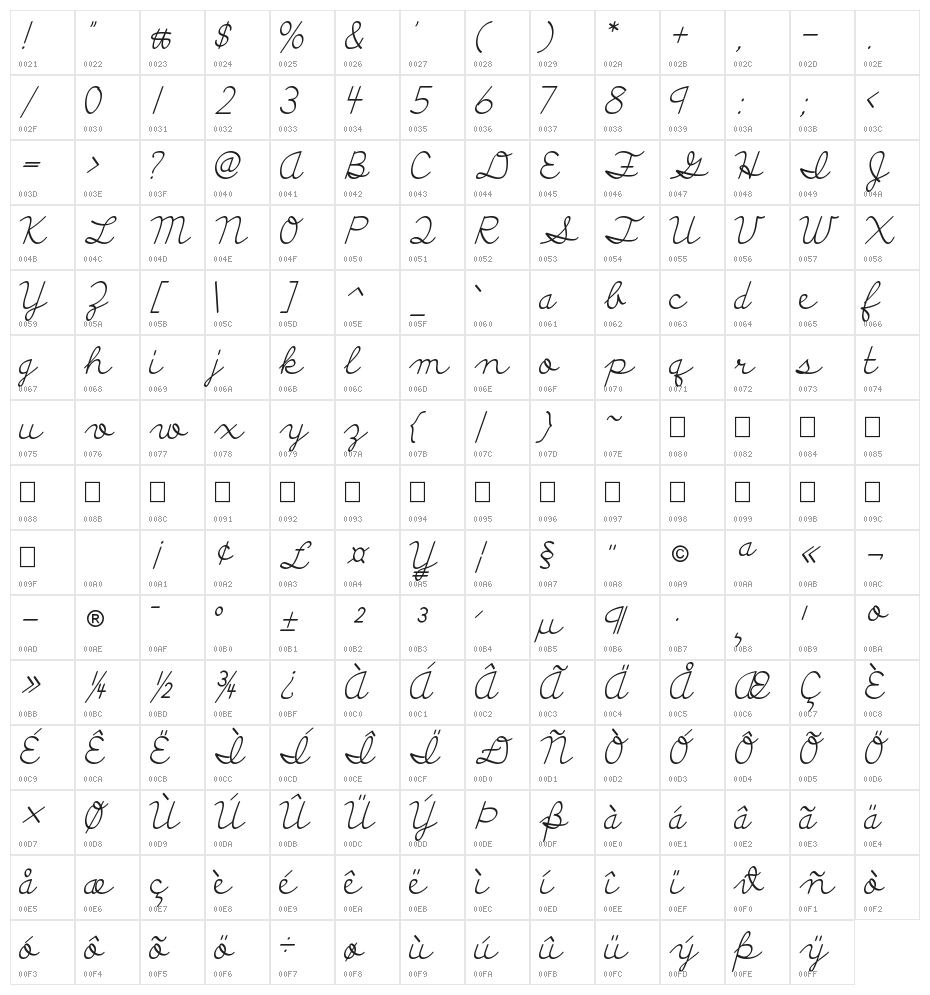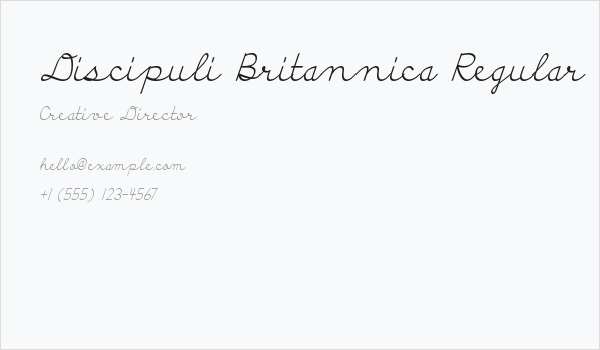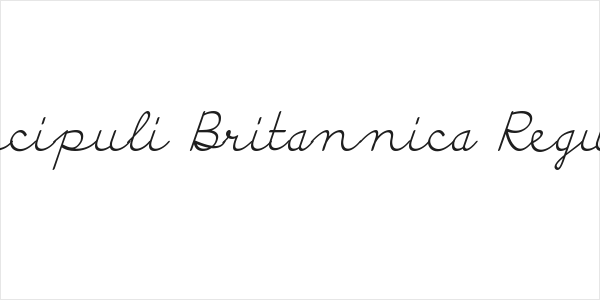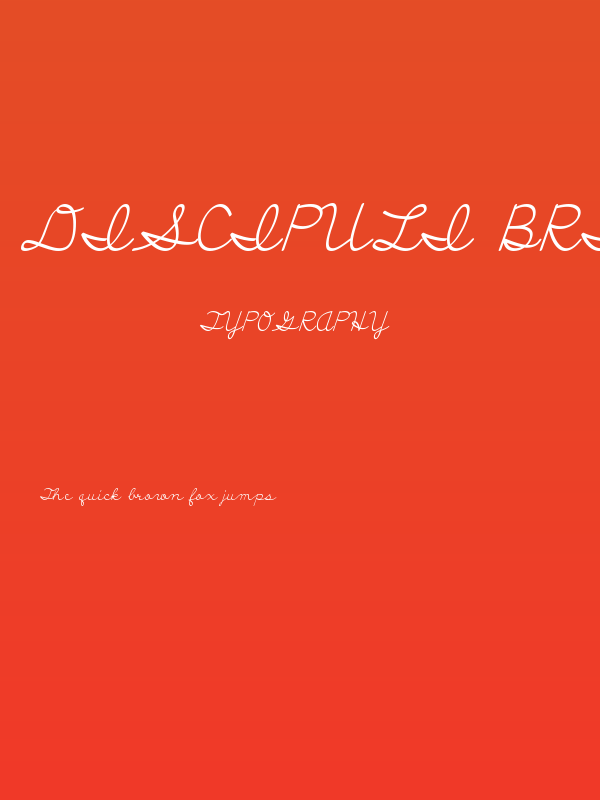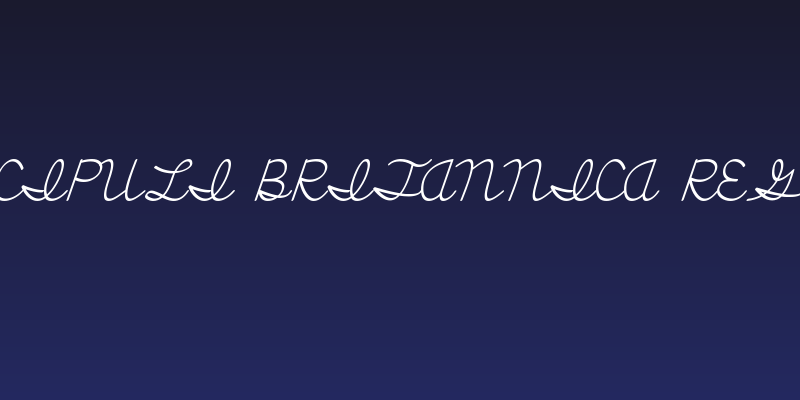
Discipuli Britannica Regular Font
Discipuli Britannica Regular Description
This font features an elegant and flowing script style, characterized by its smooth, connected strokes that mimic the fluidity of cursive handwriting. The uppercase letters are distinct and slightly more ornate, while the lowercase letters maintain a consistent, graceful appearance. The numerals are clear and easy to read, complementing the overall aesthetic. Special characters are thoughtfully designed to match the script's fluidity, ensuring a cohesive look across all text elements. This font's delicate curves and loops give it a sophisticated and timeless feel, making it suitable for a variety of design applications.
| Proposed Projects | Ideal for wedding invitations, elegant branding, personal stationery, and decorative projects. |